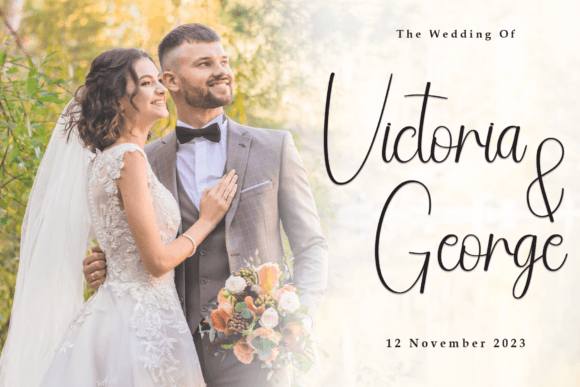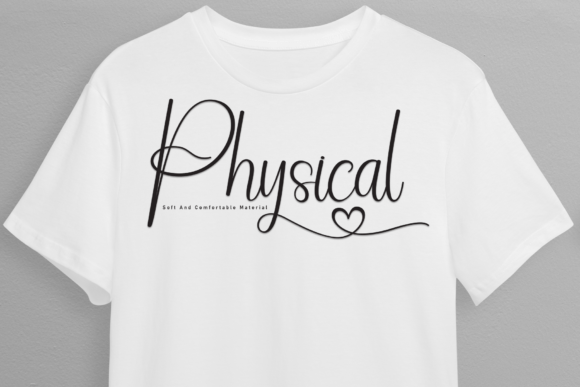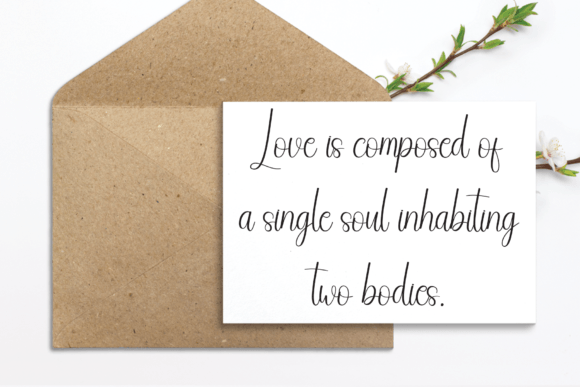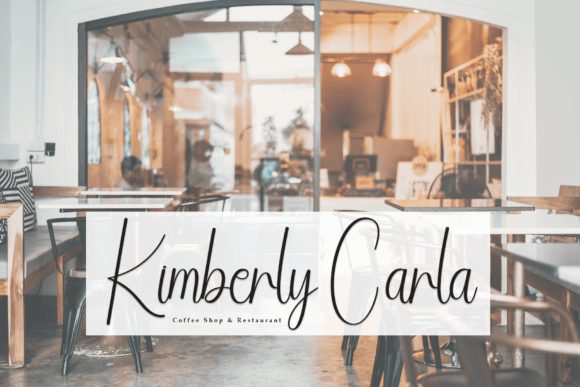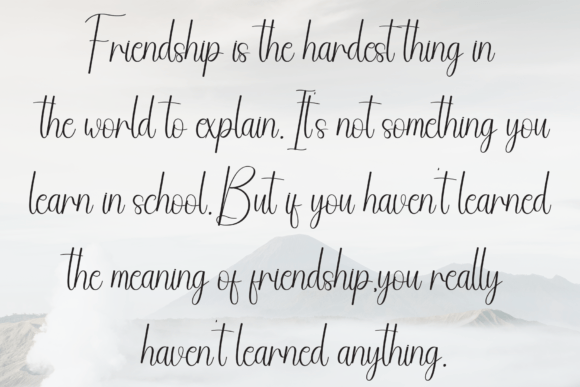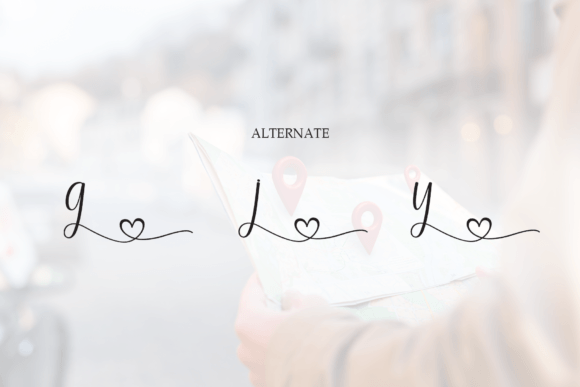
Introduction to Regional Font
As a designer, there’s nothing quite like the thrill of bringing a creative project to life. It’s the moment when all the pieces come together, and you get to see your vision take shape. But sometimes, it’s the little details that can make all the difference – like choosing the perfect font to set the tone for your design.
Enter the Regional Font, a sweet and friendly handwritten display font that’s sure to add a touch of warmth and personality to any project. With its cute and fun design, this font is ideal for writing wedding invitations, cards, or any other design that needs a fun touch. Whether you’re working on a high-quality design resource or simply need a free download to spice up your creative project, the Regional Font is a valuable asset for any designer looking to add a personal touch.
So, let’s dive into the world of the Regional Font and explore what makes it such a valuable addition to any design arsenal.
Key Features of Regional Font
- High-quality design resource with a unique, regional twist, perfect for creative projects.
- Includes a range of weights and styles, with a minimum of 6 font styles and a maximum of 12 font styles.
- Designed to be versatile and suitable for a wide range of creative projects, from logos to typography.
Honest Review: Regional Font
I recently came across the Regional Font and was excited to dive in and see what it had to offer. As a designer, I’m always on the lookout for high-quality design resources that can help bring my creative projects to life.
One of the things that immediately stood out to me about Regional Font was its unique and eclectic style. The font features a range of different typography styles, each with its own distinct character and flair. This makes it a great choice for designers who want to add a bit of personality to their projects.
- ✨ Unique and eclectic typography styles
- ✨ Great for creative projects that require a bit of flair
- ✨ High quality design
However, there are a few limitations to the Regional Font that are worth noting. For example, the font does not include a transparent background option, which can make it difficult to use in certain design situations.
Overall, I’m impressed with the Regional Font and would definitely recommend it to designers who are looking for a unique and high-quality design resource. While it may not be perfect, it’s a great choice for creative projects that require a bit of flair and personality.
Regional Font: Enhancing Your Creative Project with High-Quality Typography
Tips for Getting the Most Out of Regional Font
For a high-quality design, use Regional Font in combination with a transparent background to create a visually appealing effect. You can also experiment with different font sizes and colors to add depth and interest to your project.
Common Use Cases for Regional Font
Regional Font is a versatile design resource that can be used in various creative projects, such as brochures, flyers, posters, and social media graphics. Its unique style and high-quality typography make it an excellent choice for designers who want to add a touch of elegance and sophistication to their work.
Alternatives to Regional Font
Akzidenz-Grotesk
Akzidenz-Grotesk is a sans-serif font ideal for creative projects requiring a clean and modern look. It is perfect for designs with a transparent background, where the focus is on the content rather than the font itself. Akzidenz-Grotesk is a high-quality font that is available for free download, making it a popular choice among designers. It is a great alternative to Regional Font when you need a font that is both professional and approachable.